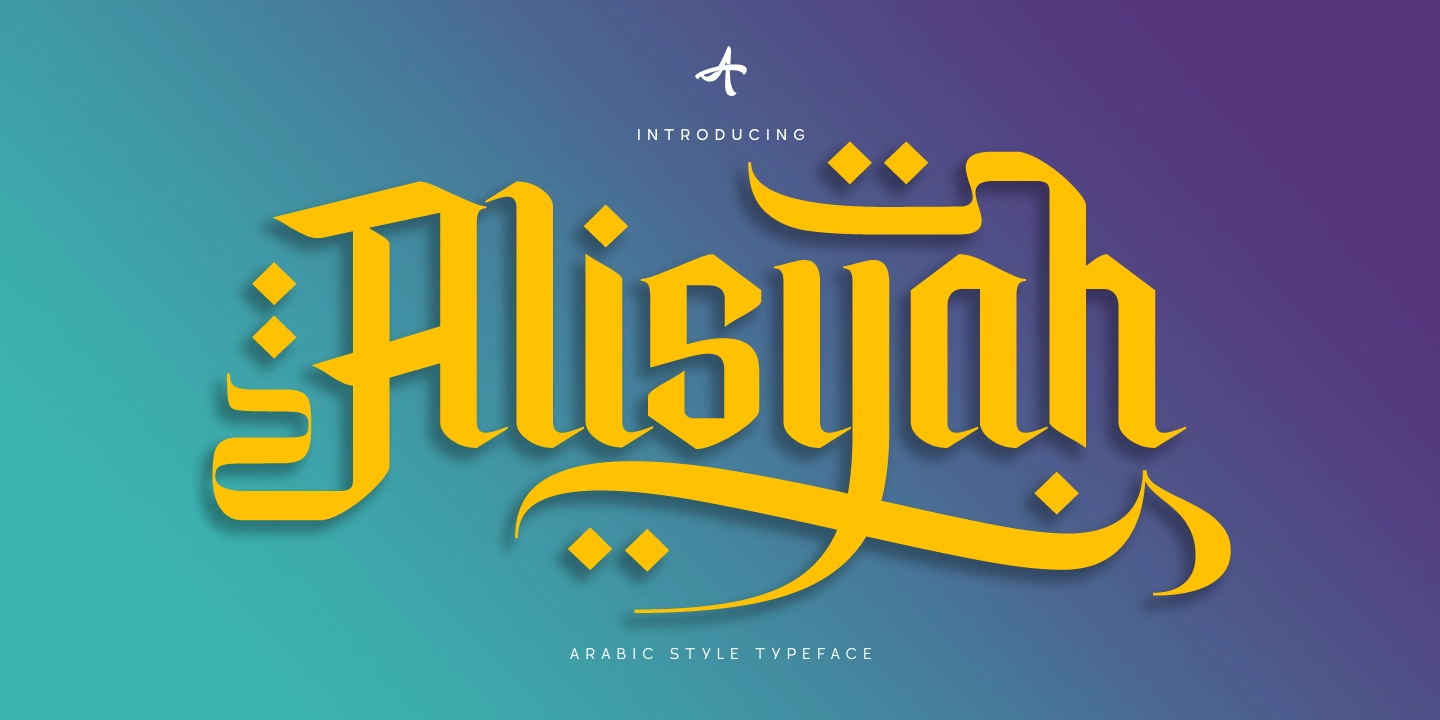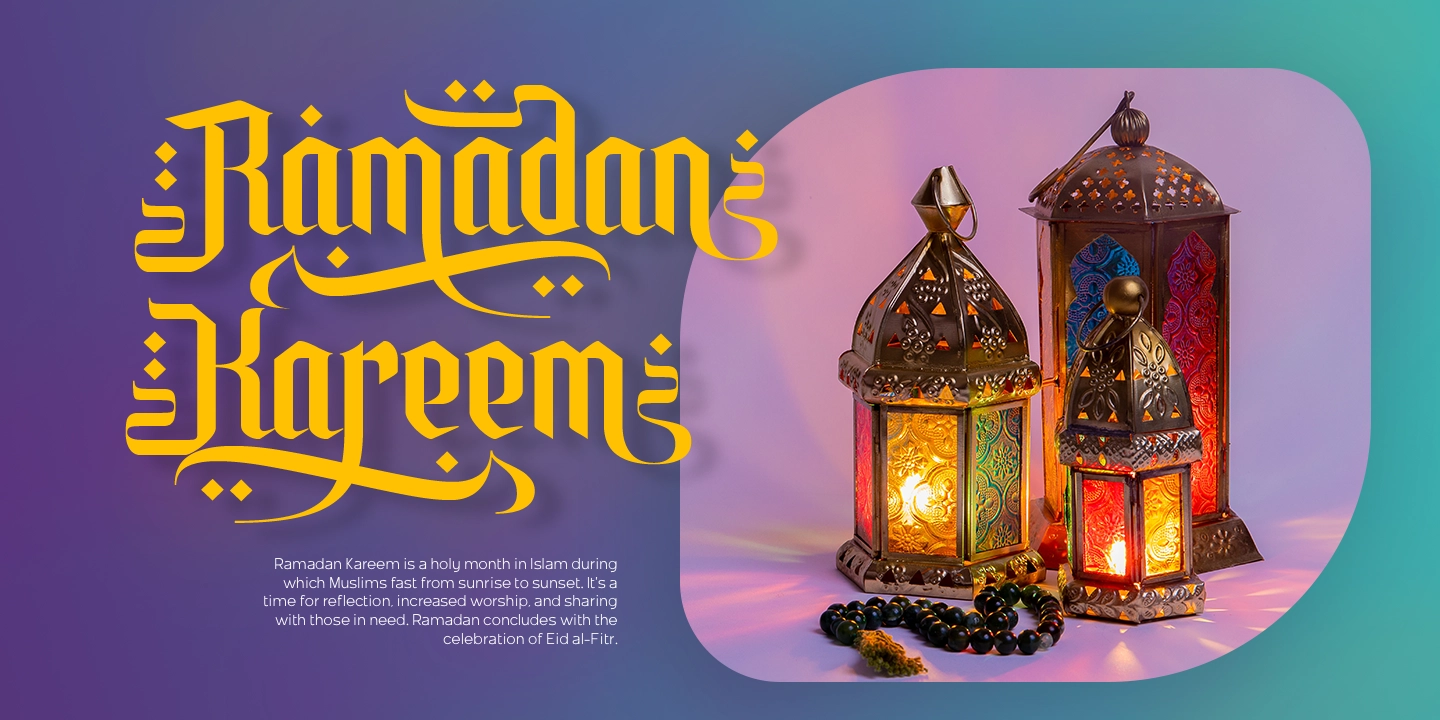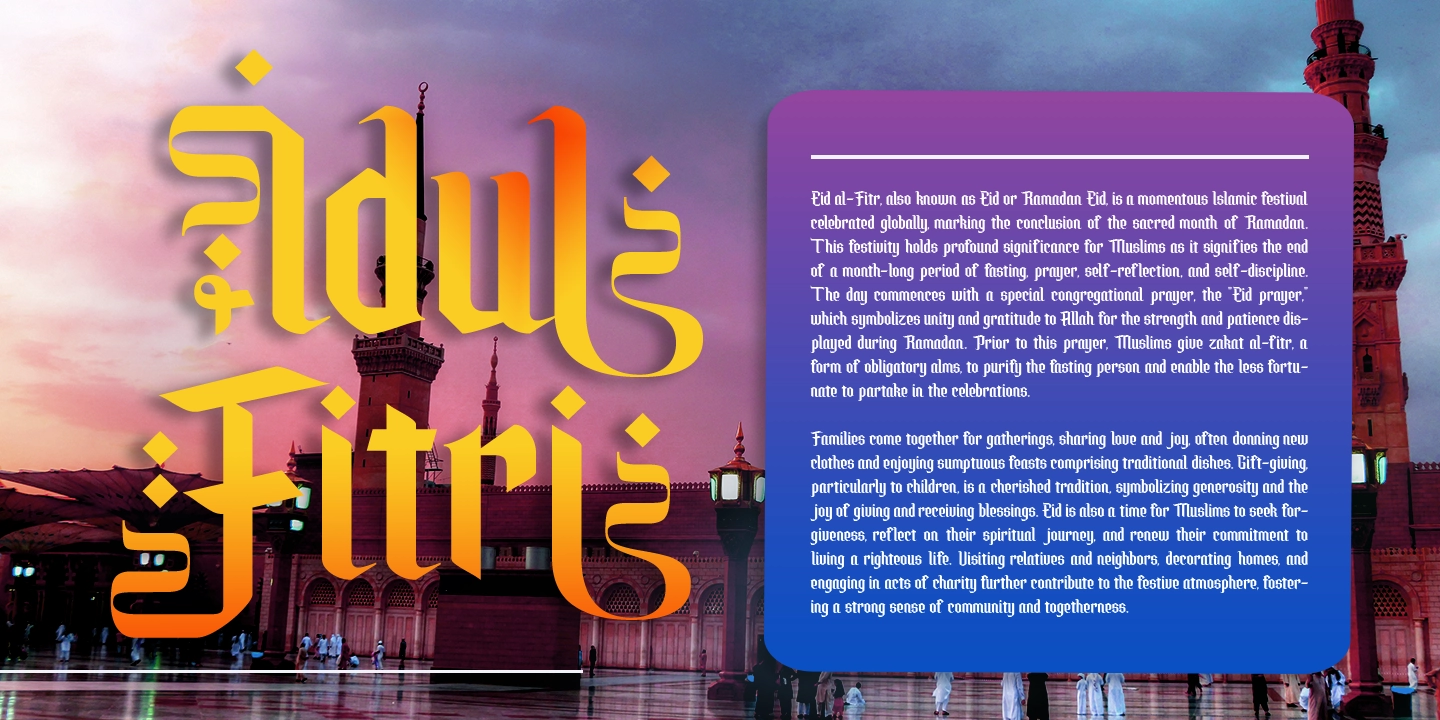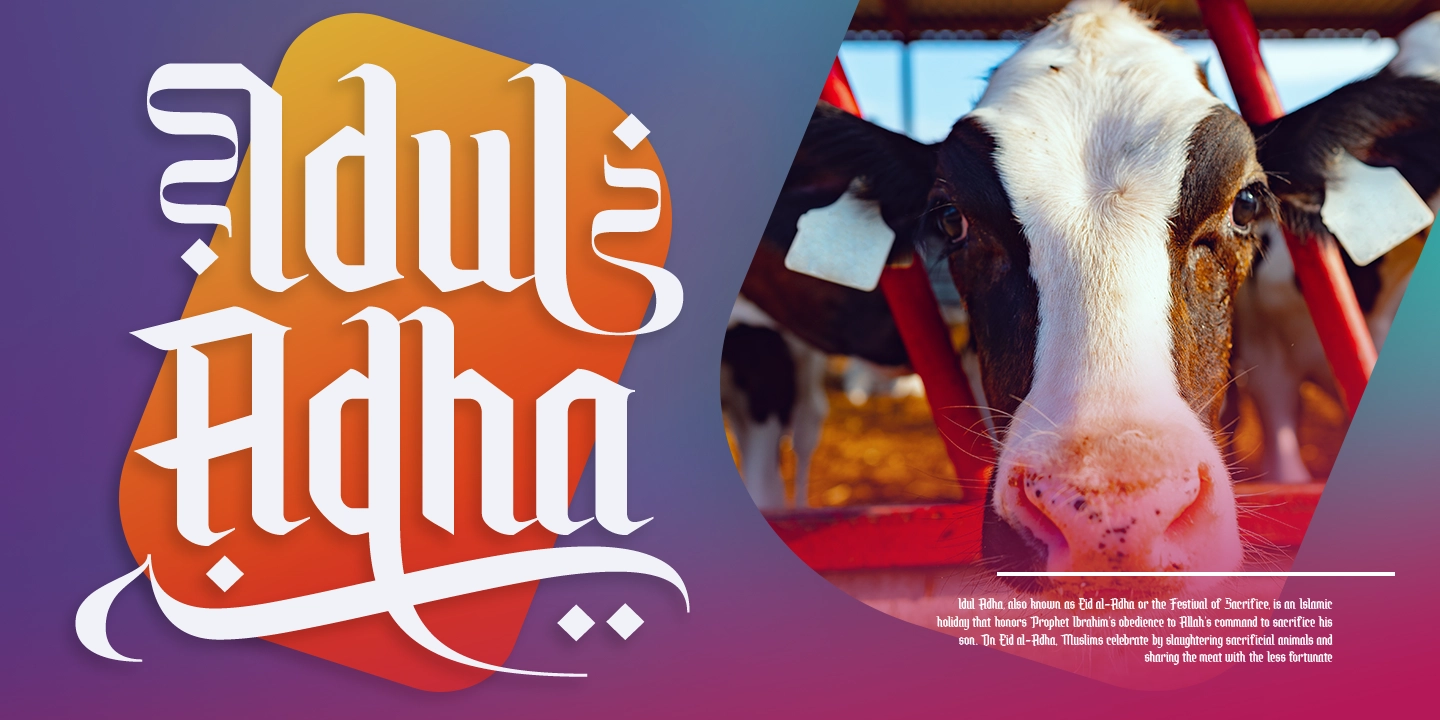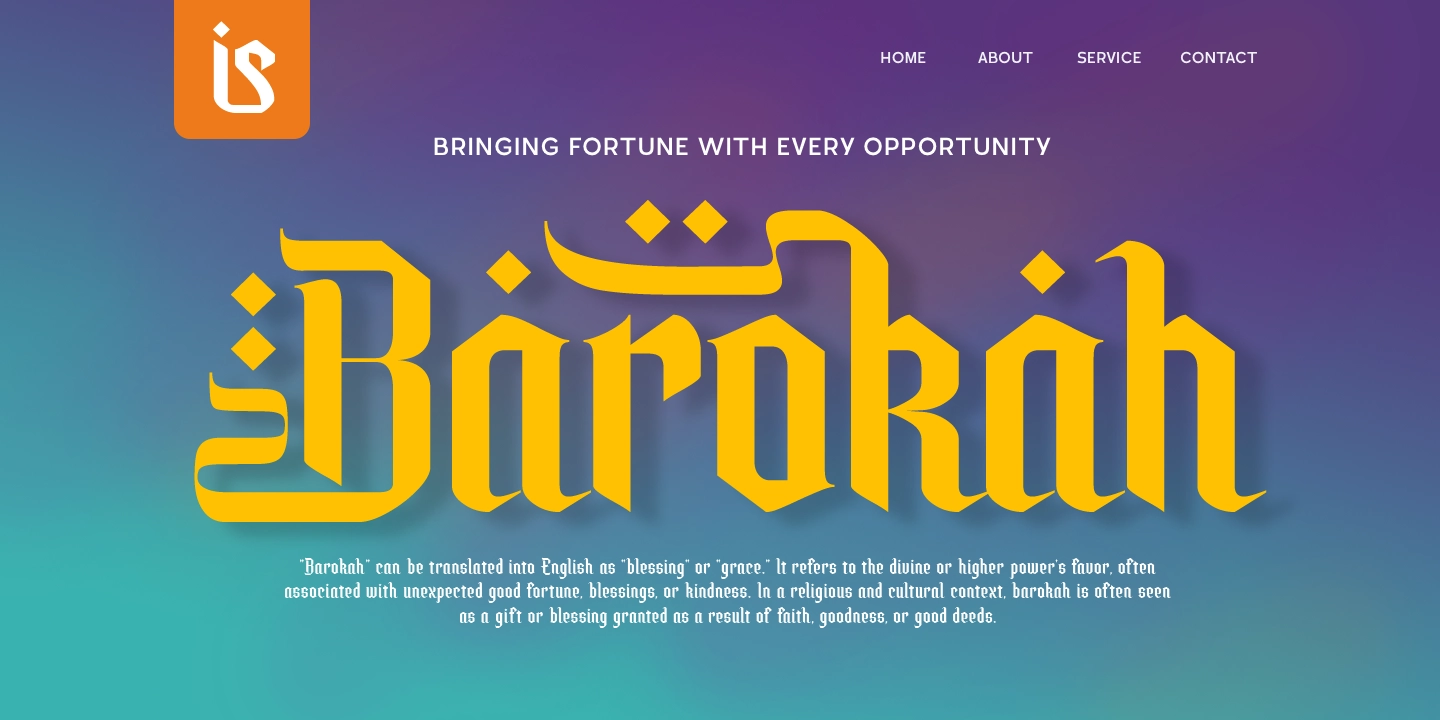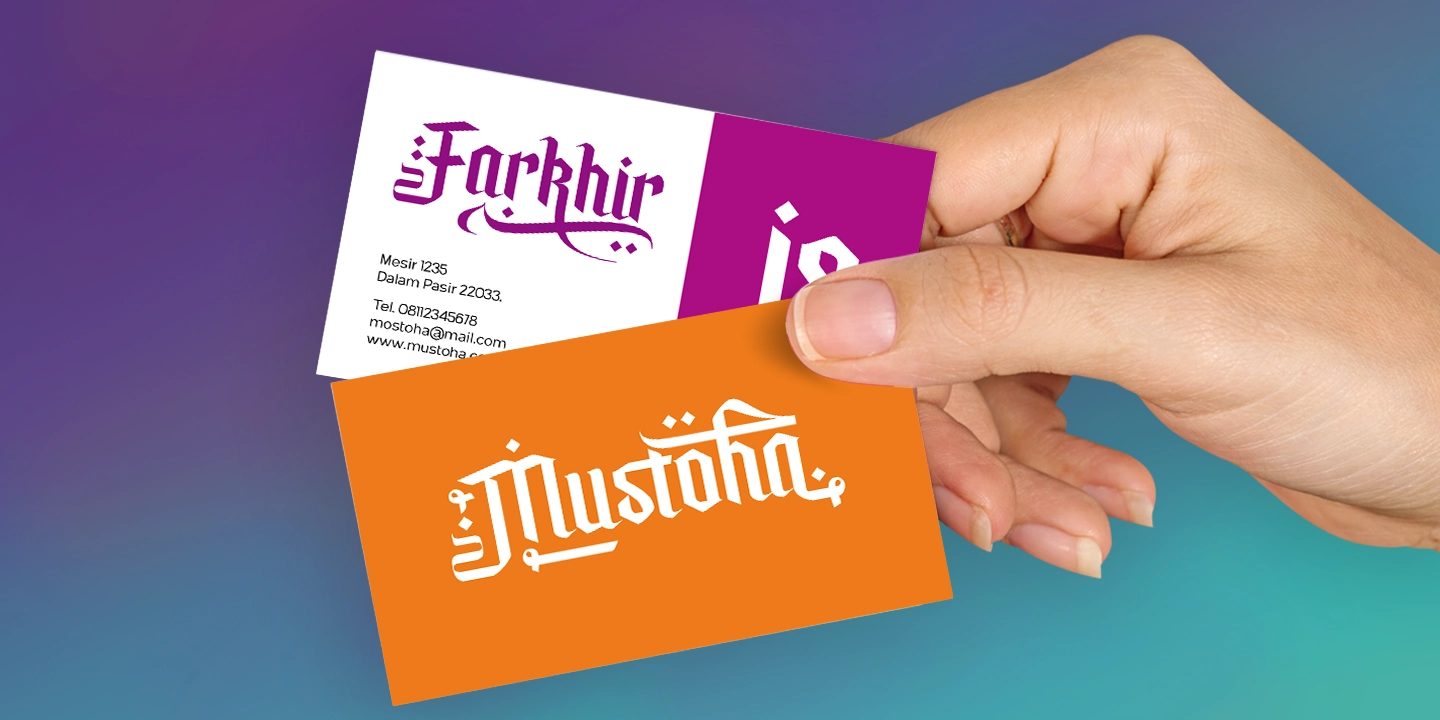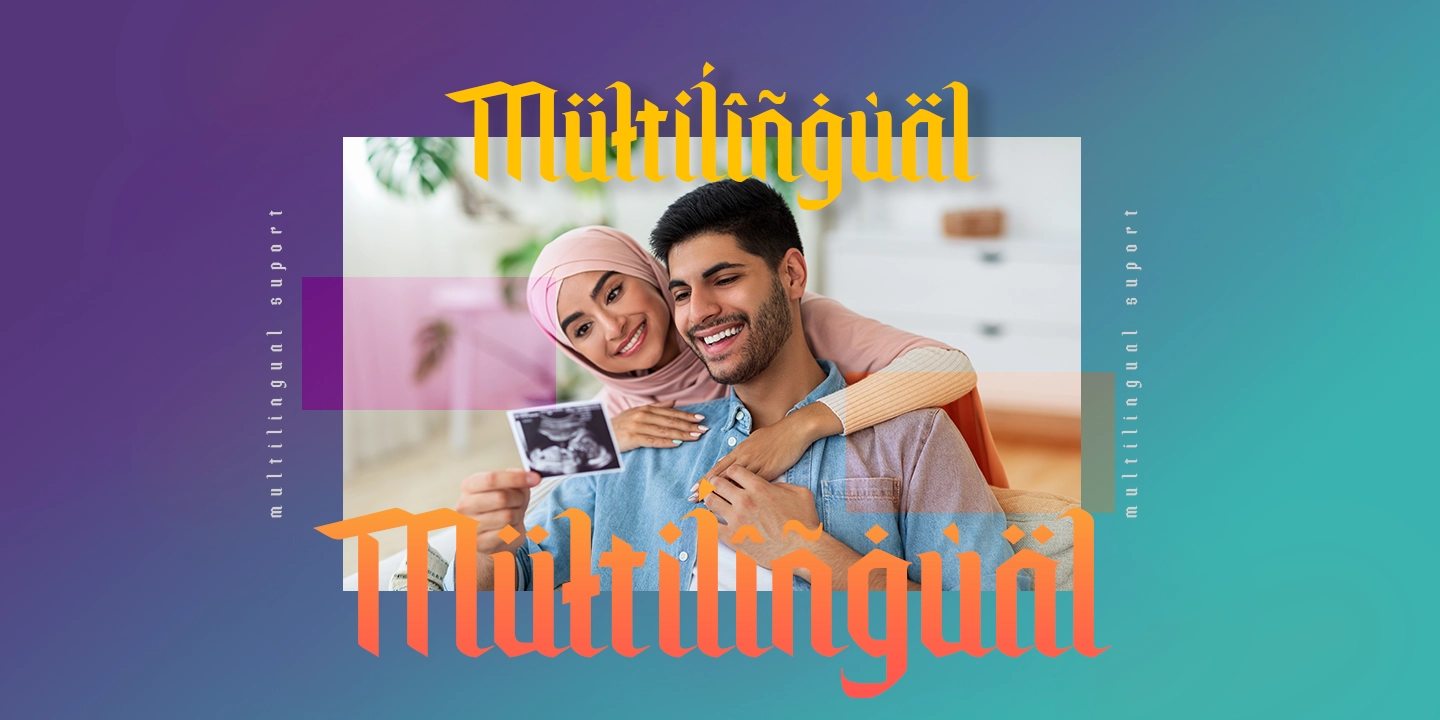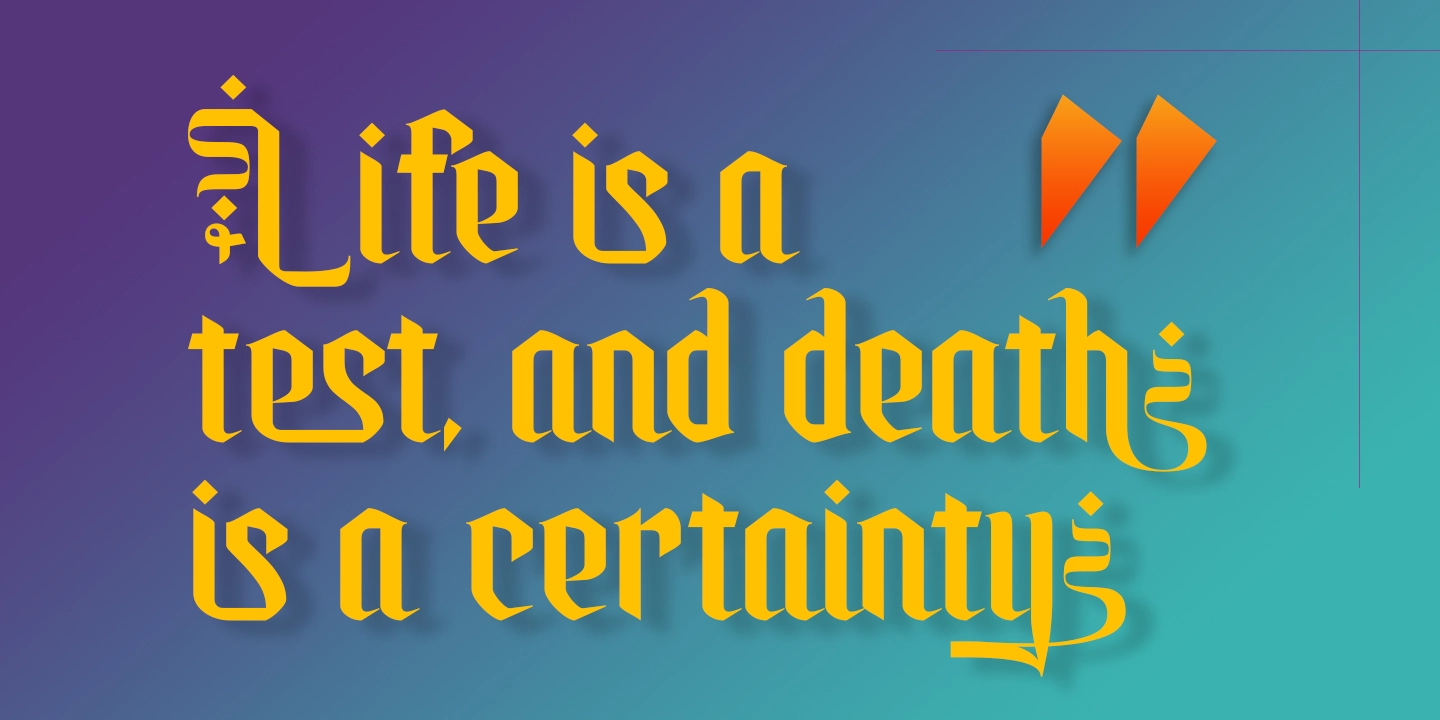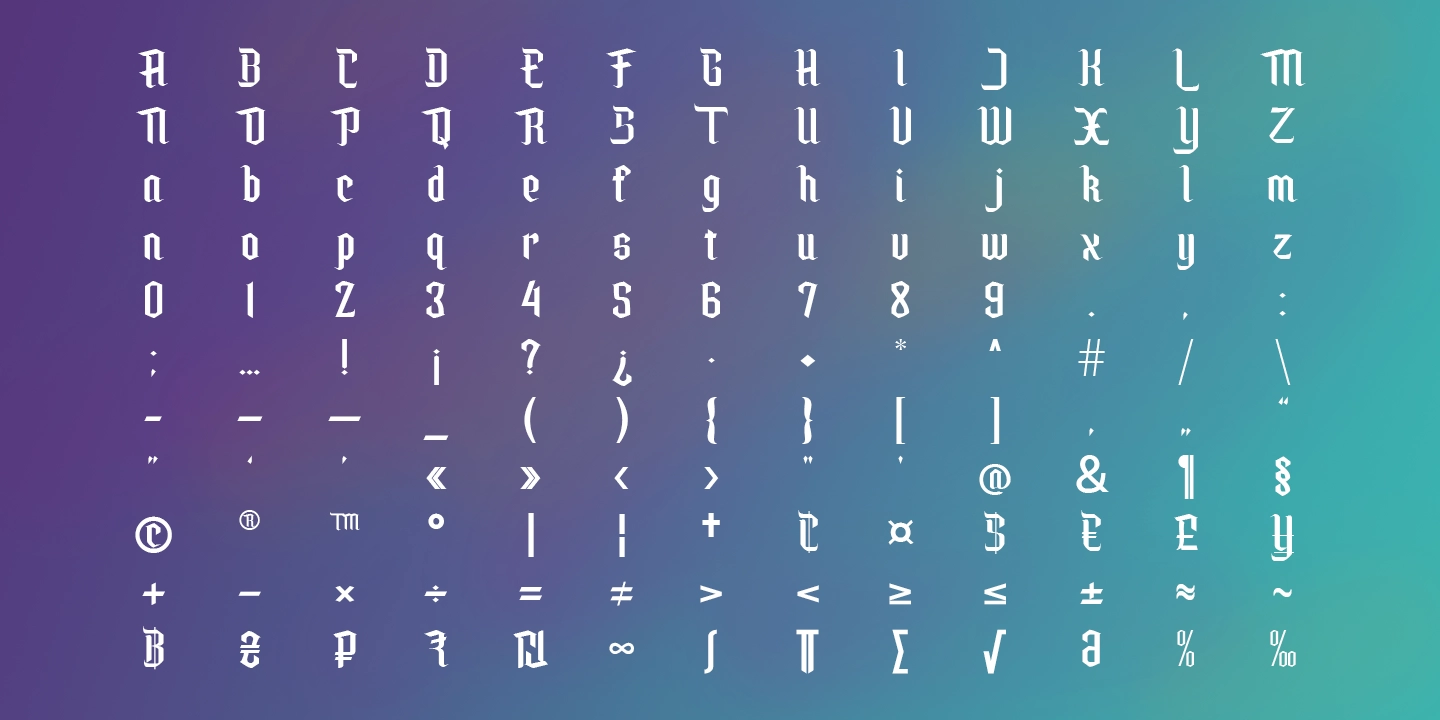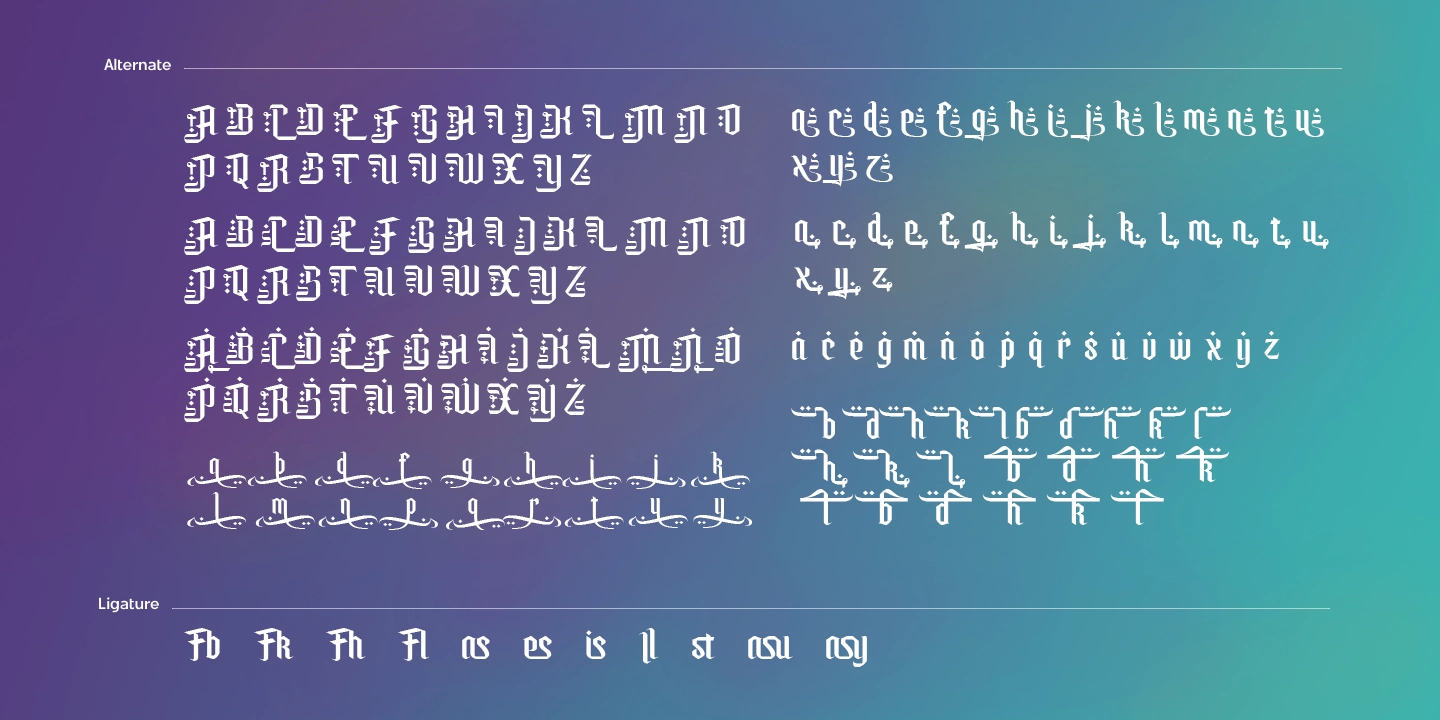
Alisyah
Alisyah is a font that carries an Islamic theme with its characteristic elegant curves. With its unique design, this font is able to evoke beauty in every character. The uniqueness of Alisyah lies not only in its visual beauty but also in its ability to harmoniously blend with various other fonts. Therefore, this font becomes the perfect choice for various modern Islamic-themed design projects, providing an inspiring natural touch. With Alisyah, every text composition becomes more meaningful and captivating, creating a profound and mesmerizing atmosphere for readers. This font is highly suitable for use in poster titles, films, and books.